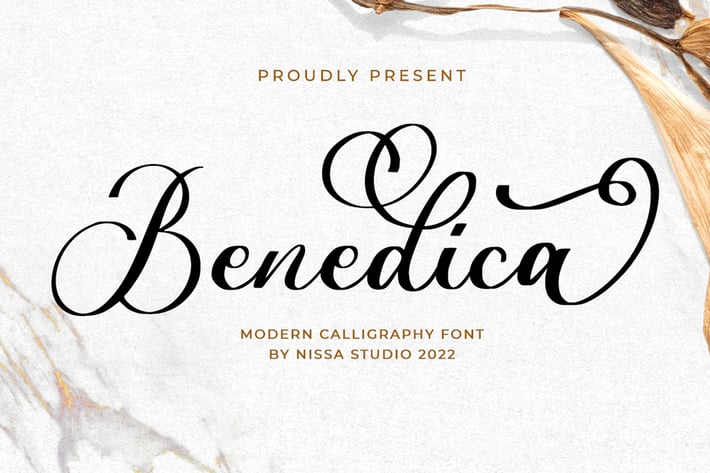
Benedica - Elegant Script Font
Benedica is an elegant handwritten font that feels both gorgeous and distinct. It looks beautiful on wedding invitations, thank you cards, quotes, greeting cards, logos, business cards, and every other design which needs a customized touch.
Modern Handwritten Font
Beautiful Swash (Ending tail)
Beautiful Titling (Beginning tail)
Special Ligatures